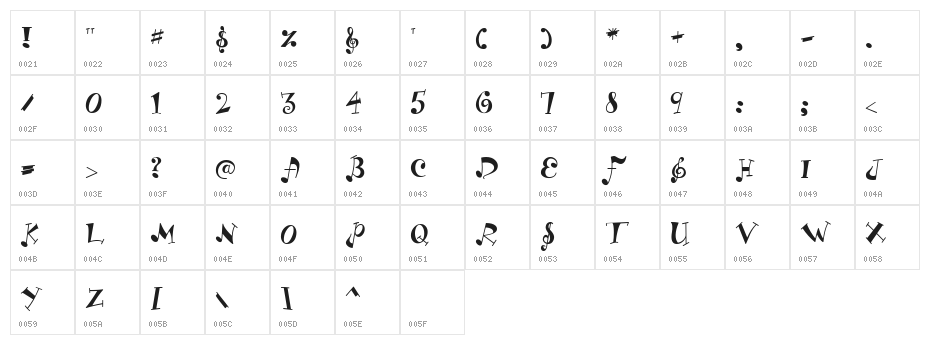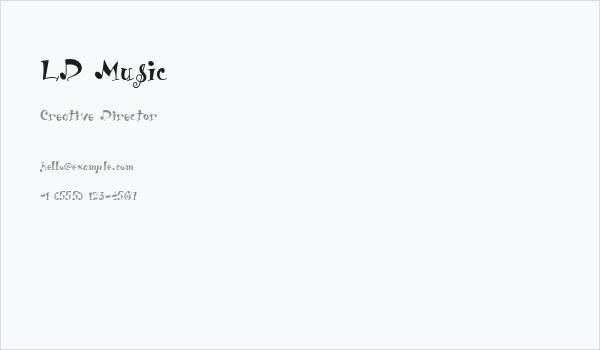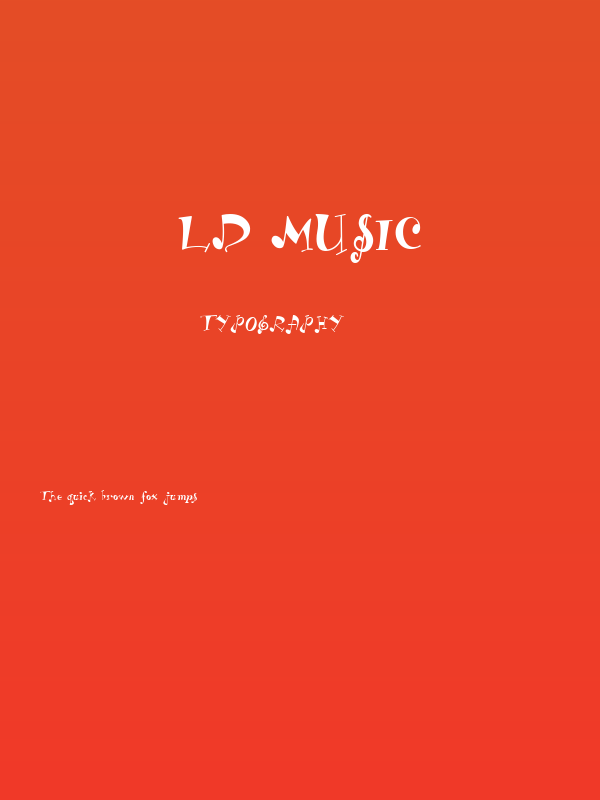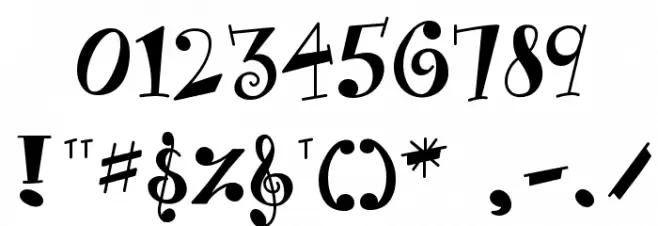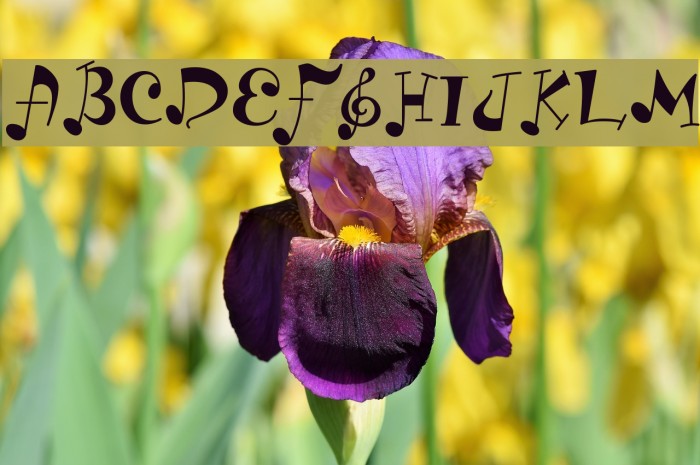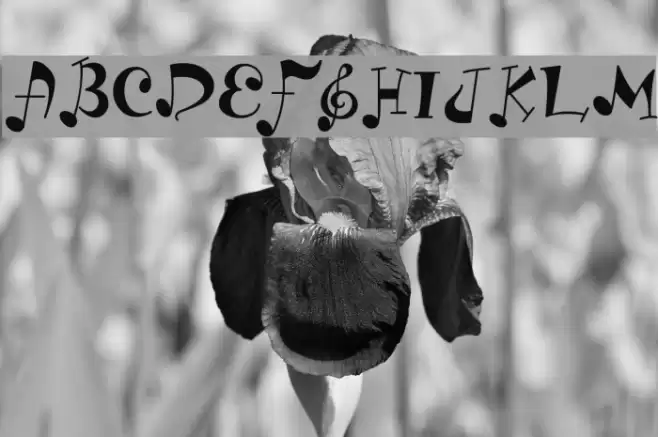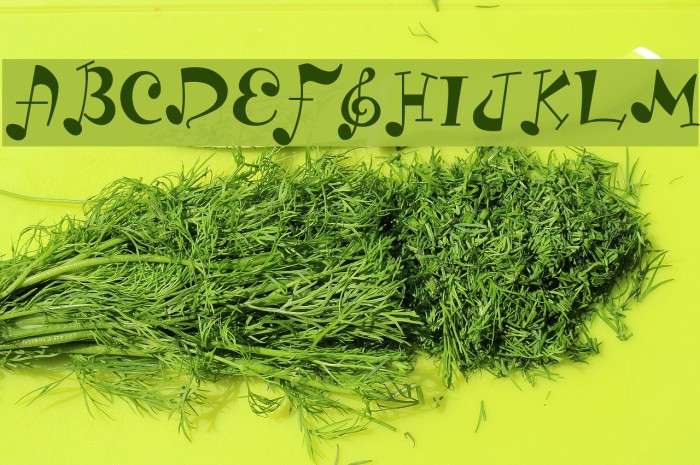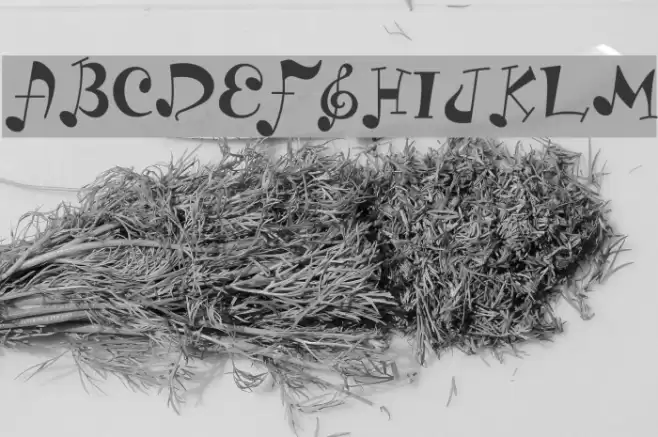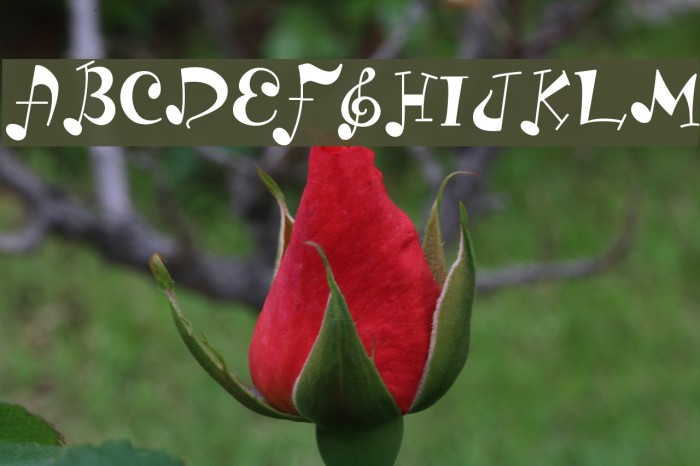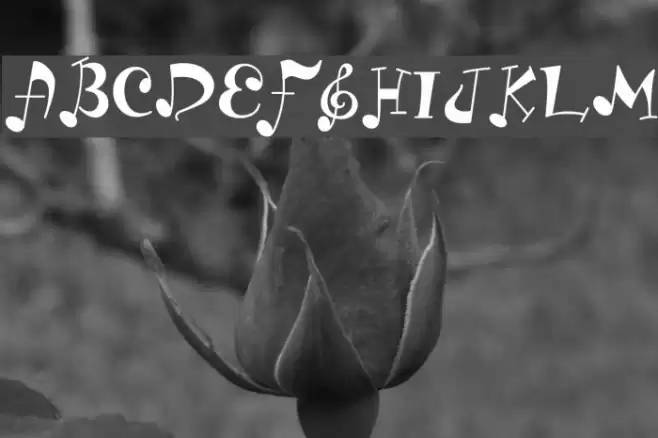
LD Music Font
LD Music Description
This font features a whimsical and playful design, incorporating musical elements into its characters. The letters are adorned with musical notes and symbols, creating a unique and artistic appearance. The strokes vary in thickness, adding a dynamic and lively feel to the text. The overall style is decorative and expressive, making it ideal for creative projects that require a touch of musical flair. The characters are well-spaced, ensuring readability while maintaining their artistic integrity. This font is perfect for projects that aim to convey a sense of fun and creativity.
| Proposed Projects | Ideal for music-themed posters, album covers, event invitations, and creative branding. |